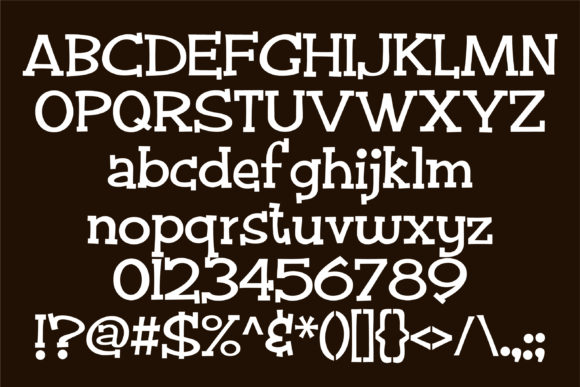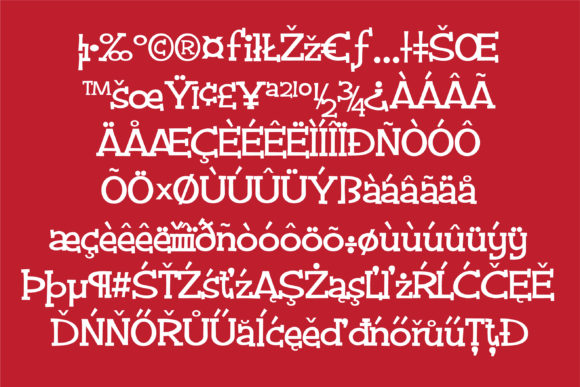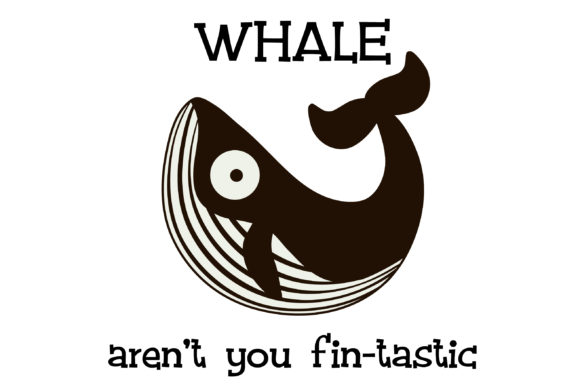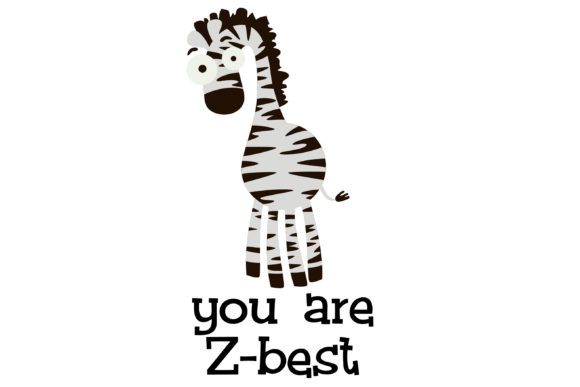
Cranberry Crust Font: A Sweet and Delicious Serif Font with a Happy Vibe
Are you looking for a font that can add a touch of whimsy and charm to your designs? Look no further than the Cranberry Crust font! This sweet and delicious serif font is sure to bring a smile to your face with its incredibly happy vibe. In this article, we’ll dive into the world of Cranberry Crust and explore its unique features, uses, and benefits for designers and crafters.
What is Cranberry Crust Font?
Cranberry Crust is a serif font that is as sweet as it sounds. With its rounded edges and playful curves, this font is perfect for adding a touch of whimsy to any design project. Whether you’re working on a logo, a poster, or a digital project, Cranberry Crust is sure to bring a happy and carefree vibe to your work.
Unique Features of Cranberry Crust Font
So, what sets Cranberry Crust apart from other fonts? Here are a few of its unique features:
- Whimsical charm: Cranberry Crust has a playful and whimsical charm that is sure to capture the attention of your audience.
- Sweet and delicious: The font’s rounded edges and curves give it a sweet and delicious look that is perfect for designs that require a friendly and approachable tone.
- Serif details: Cranberry Crust is a serif font, which means it has small lines or flourishes at the ends of the letters. This adds a touch of sophistication and elegance to the font.
- Happy vibe: The font’s overall design and feel is incredibly happy and upbeat, making it perfect for designs that require a positive and energetic tone.
Uses of Cranberry Crust Font
Cranberry Crust is a versatile font that can be used in a variety of design projects, including:
- Logos and branding: The font’s unique and playful design makes it perfect for logos and branding projects that require a friendly and approachable tone.
- Posters and flyers: Cranberry Crust is a great font for posters and flyers that require a bold and eye-catching design.
- Digital projects: The font is also perfect for digital projects, such as social media graphics, email headers, and website designs.
- Crafting and scrapbooking: Cranberry Crust is a great font for crafters and scrapbookers who want to add a personal touch to their projects.
Benefits of Using Cranberry Crust Font
So, why should you use Cranberry Crust font in your designs? Here are a few benefits:
- Adds a touch of whimsy: Cranberry Crust adds a touch of whimsy and charm to any design project, making it perfect for designs that require a playful tone.
- Easy to read: The font is easy to read, even at small sizes, making it perfect for designs that require a clear and legible font.
- Versatile: Cranberry Crust is a versatile font that can be used in a variety of design projects, from logos and branding to posters and digital projects.
- Unique: The font’s unique design makes it stand out from other fonts, ensuring that your designs will be noticed.
Tips for Using Cranberry Crust Font
Here are a few tips for using Cranberry Crust font in your designs:
- Use it with contrasting colors: Cranberry Crust looks great with contrasting colors, such as bold and bright colors.
- Experiment with different sizes: The font looks great at different sizes, from large and bold to small and delicate.
- Pair it with other fonts: Cranberry Crust can be paired with other fonts to create a unique and interesting design.
In conclusion, Cranberry Crust font is a sweet and delicious serif font with an incredibly happy vibe. Its unique features, versatility, and benefits make it a great addition to any design project. Whether you’re a designer, crafter, or scrapbooker, Cranberry Crust is sure to inspire you with its whimsical charm. So, why not give it a try and see how it can add a touch of sweetness to your designs?